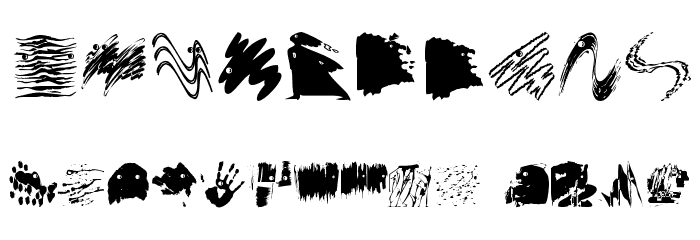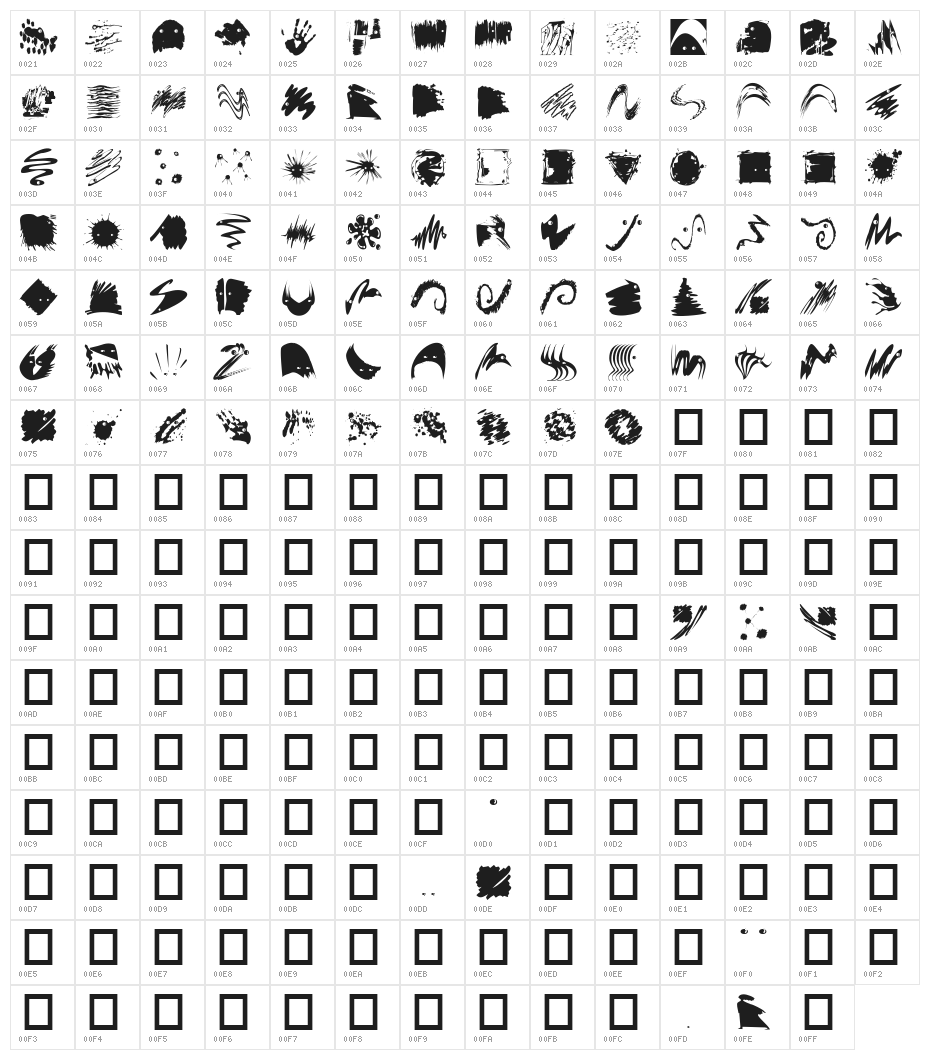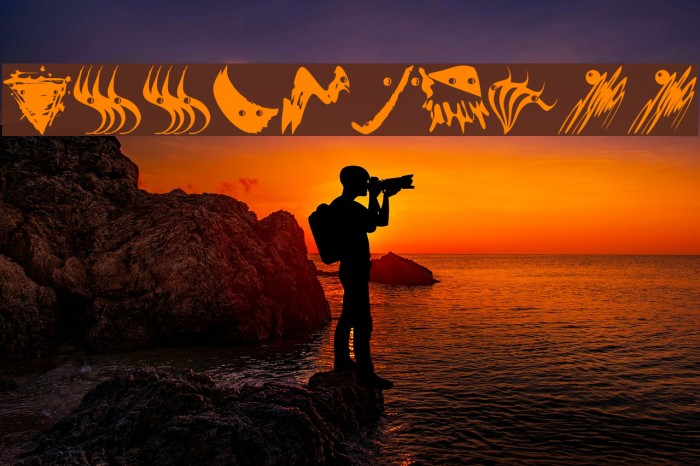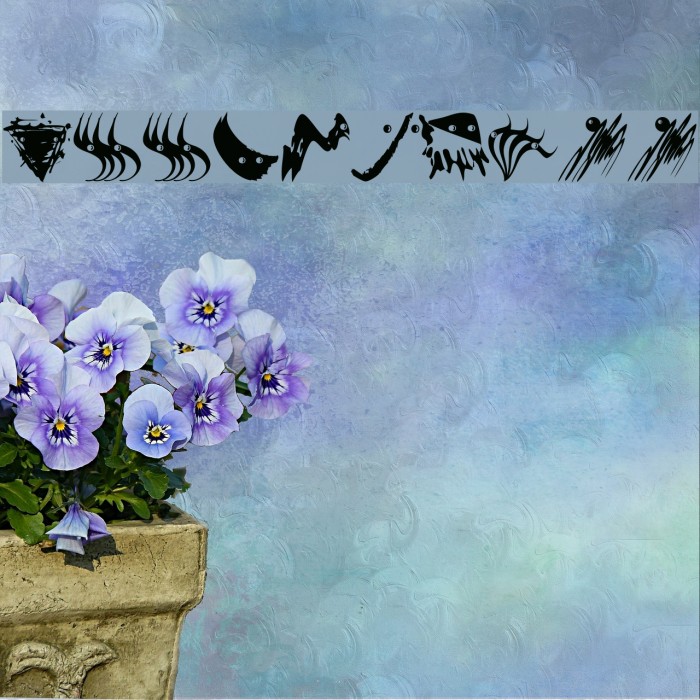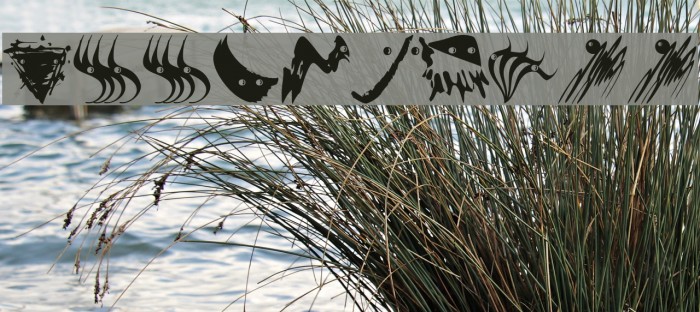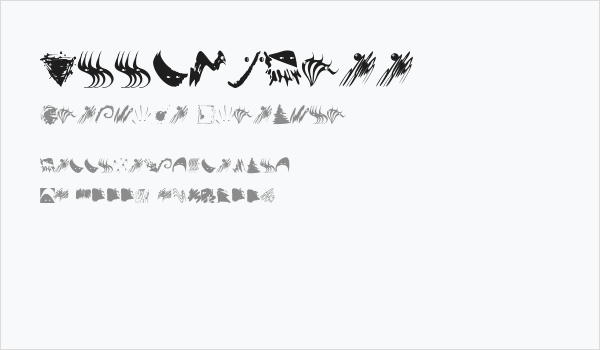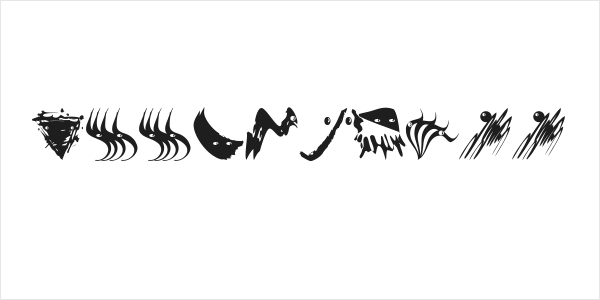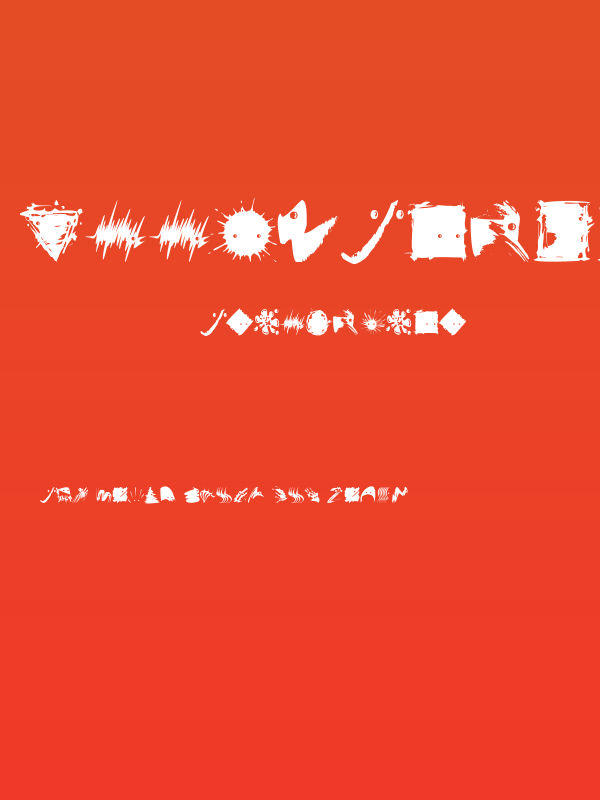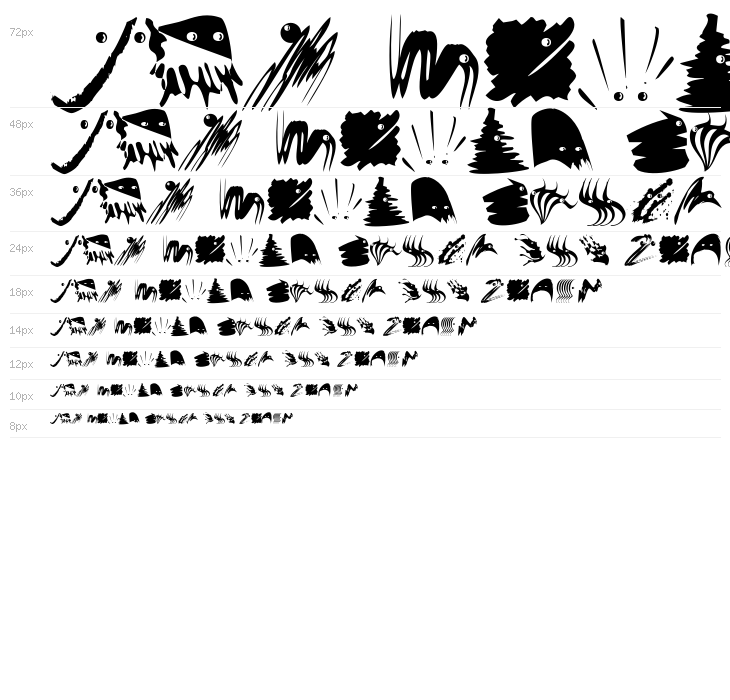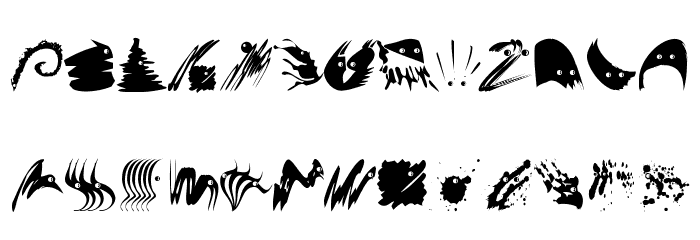
FoolsThree Font
FoolsThree Description
This is not a valid font. The image consists of abstract and artistic symbols that do not correspond to any recognizable alphabet or numerical system. The elements are highly decorative and varied in shape, resembling artistic brush strokes or abstract art rather than traditional typographic characters.
Overall StyleAbstract, Artistic
Use CaseDecorative elements, Art projects
Proposed ProjectsThese symbols could be used in abstract art projects, graphic design elements, or as decorative motifs.